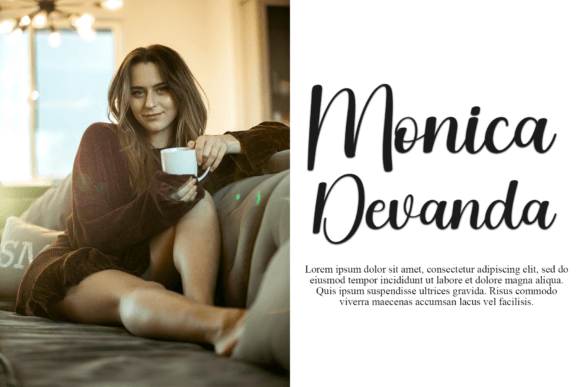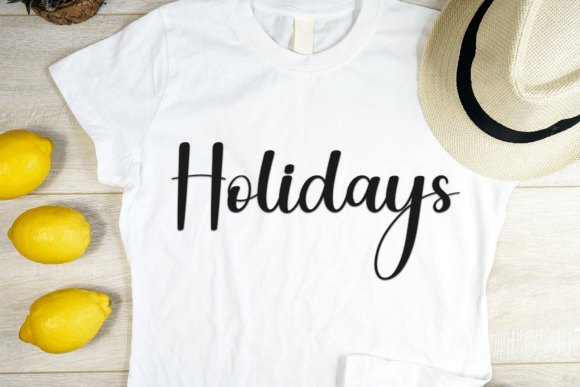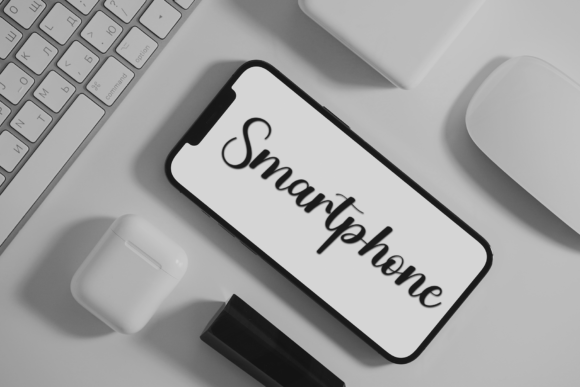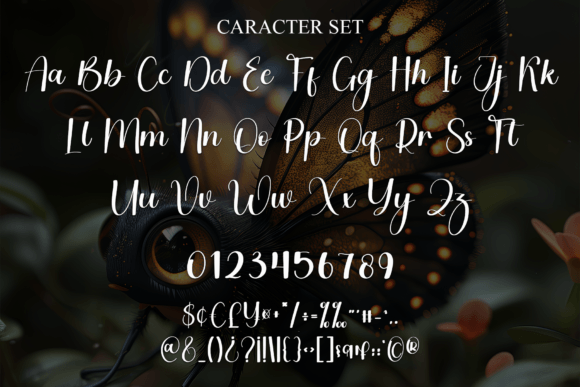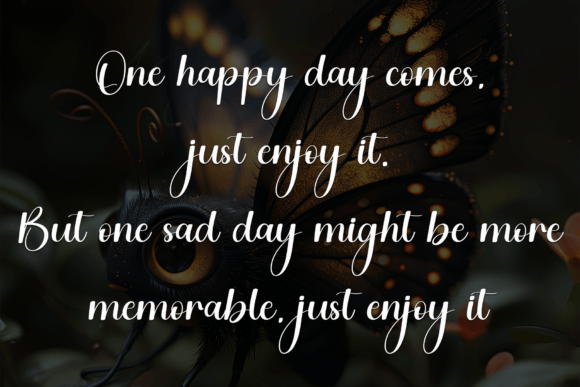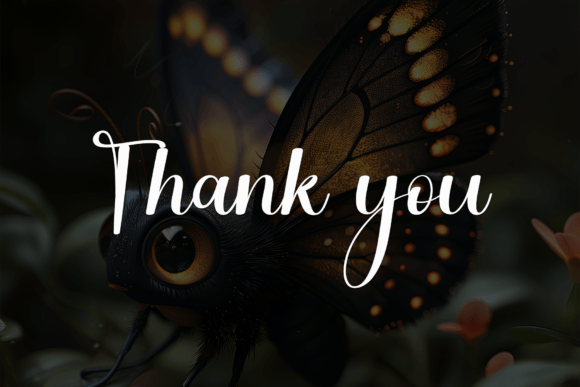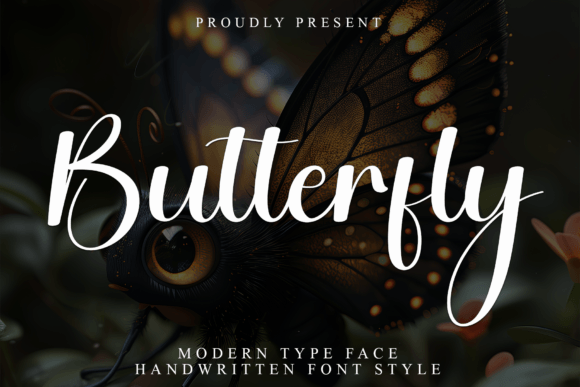
Introducing Butterfly Font: A Timeless Handwritten Delight
Are you a designer or crafter looking for a font that can add a touch of elegance and whimsy to your creations? Look no further than the Butterfly Font! This lovely and timeless handwritten font is perfect for creating eye-catching logos, branding, and quotes that will leave a lasting impression.
The Beauty of Butterfly Font
What sets Butterfly Font apart is its unique and beautiful touch. Every letter has been carefully crafted to bring a sense of playfulness and sophistication to your designs. The font’s handwritten style gives it a personal and approachable feel, making it perfect for projects that require a human touch.
Butterfly Font is a versatile font that can be used in a variety of design projects. Whether you’re creating a logo, branding materials, or social media graphics, this font is sure to impress. Its elegant and cursive style makes it perfect for:
- Logos and branding: Create a lasting impression with a custom logo that showcases your brand’s personality.
- Quotes and typography: Add a touch of elegance to your quotes and typography with a font that’s both beautiful and easy to read.
- Social media graphics: Stand out on social media with eye-catching graphics that feature the Butterfly Font.
- Stationery and invitations: Add a personal touch to your stationery and invitations with a font that’s both whimsical and sophisticated.
Why Choose Butterfly Font?
With so many fonts to choose from, why should you choose Butterfly Font? Here are just a few reasons:
- Unique and beautiful touch: Every letter has been carefully crafted to bring a sense of playfulness and sophistication to your designs.
- Timeless style: The handwritten style of Butterfly Font is timeless and will never go out of fashion.
- Easy to read: Despite its elegant and cursive style, Butterfly Font is easy to read and understand.
- Versatile: Use Butterfly Font in a variety of design projects, from logos and branding to social media graphics and stationery.